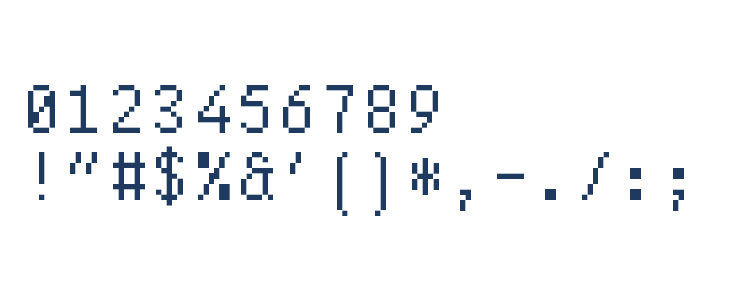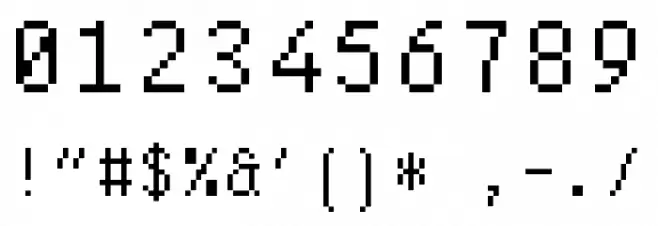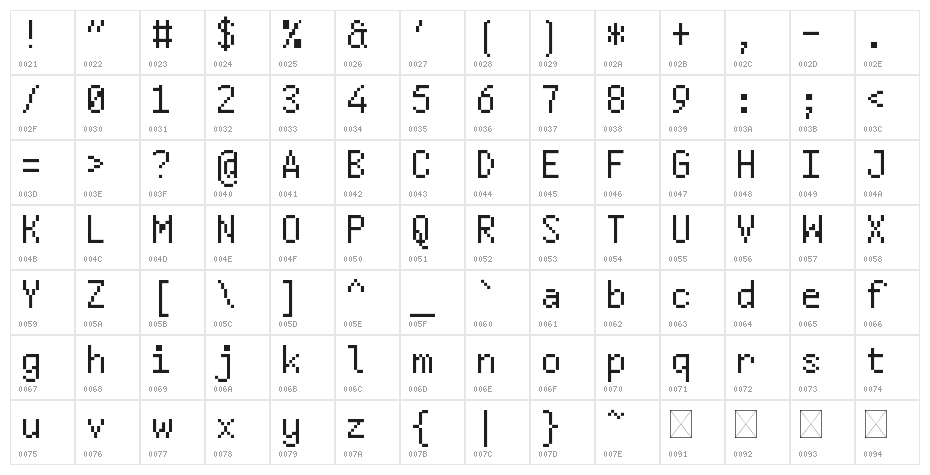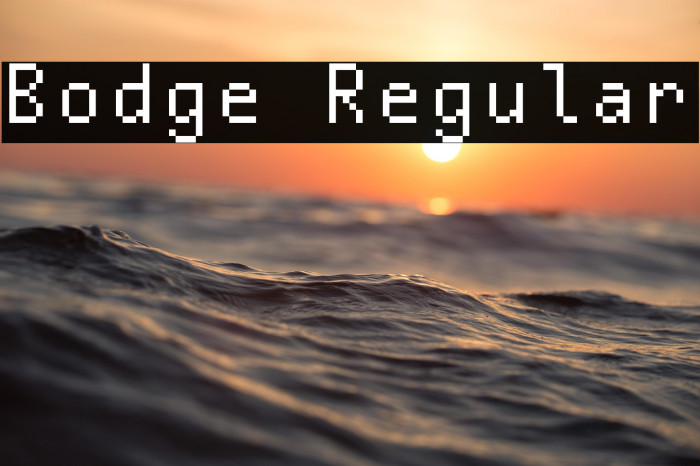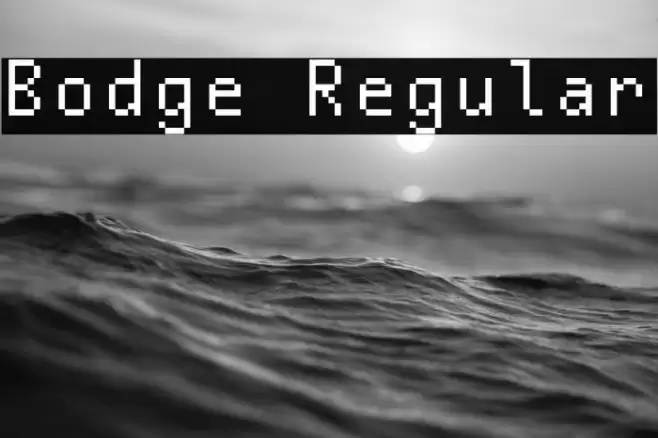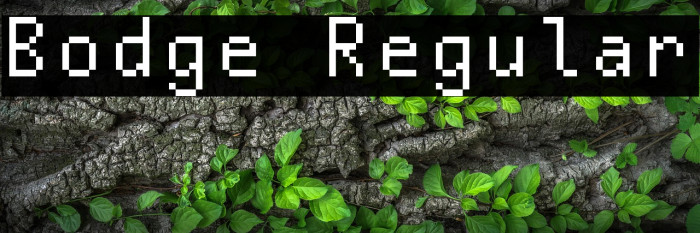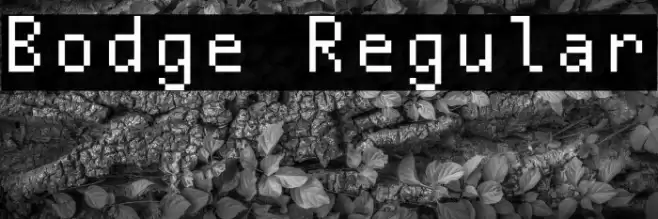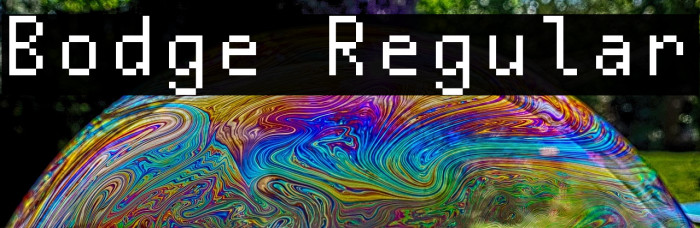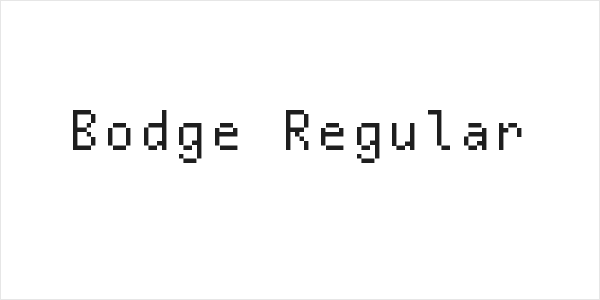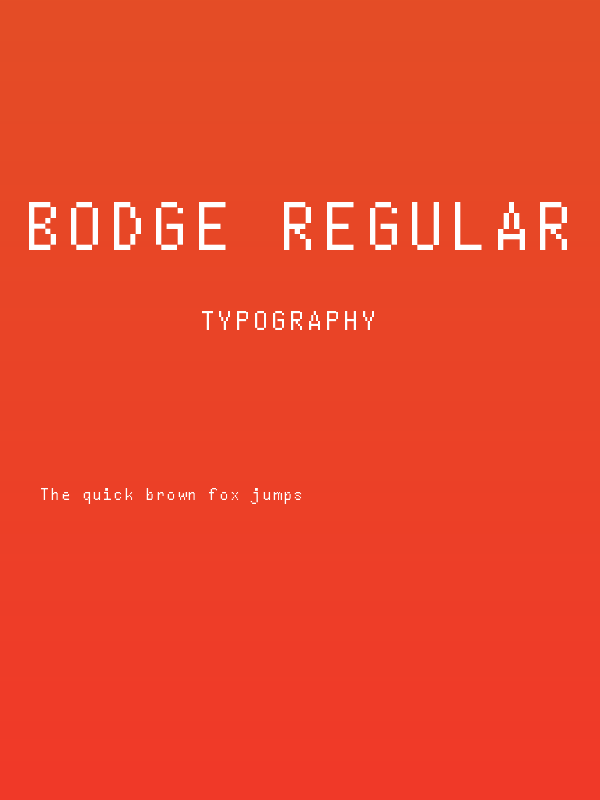
Bodge Regular Font
Bodge Regular Description
This font features a pixelated, monospaced design reminiscent of early digital displays and classic video games. Each character is constructed with a grid-like precision, giving it a retro and technical appearance. The uniformity in width across all characters ensures a consistent and structured look, ideal for coding or digital-themed projects. The uppercase and lowercase letters maintain a similar height, enhancing readability and maintaining a cohesive visual flow. The numerals and special characters are crafted with the same pixelated style, ensuring they blend seamlessly with the alphabetic characters.
| Overall Style | Retro |
| Use Case | Coding, Digital displays, Retro designs |
| Proposed Projects | Ideal for coding environments, retro video game designs, digital art projects, and any creative work requiring a nostalgic digital feel. |